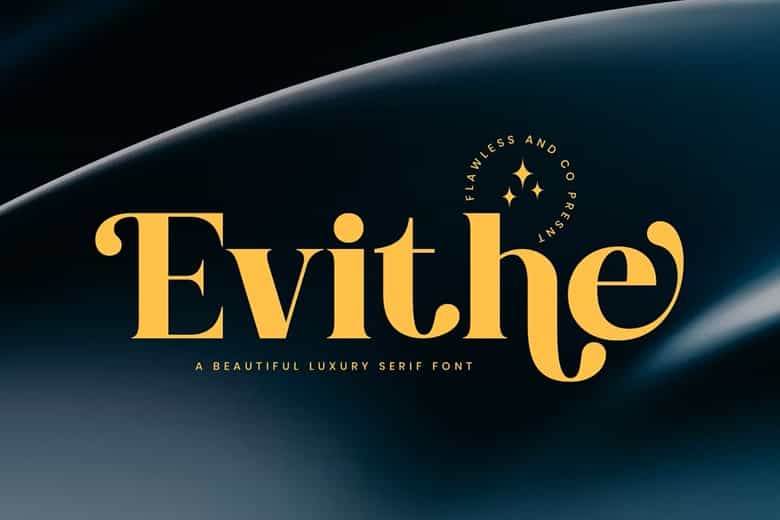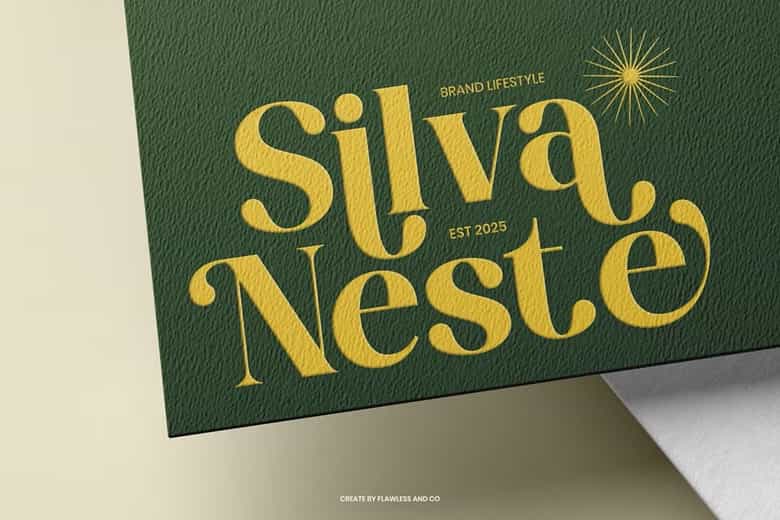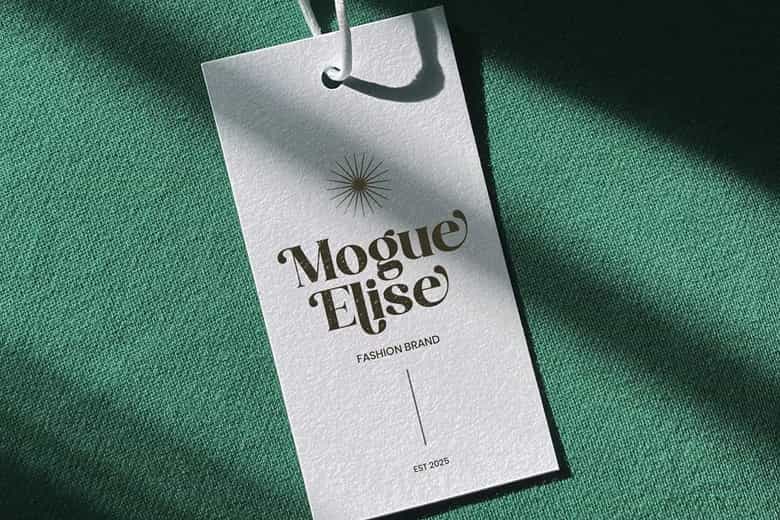
Evithe is an incredible display serif font which blends elegance and sophistication in each movement. This collection is created with the spirit of luxury and a quality eye to detailing to blend the elements of a classic beauty with a very contemporary attitude, which makes it the perfect option to consider when looking to upgrade your visual identity.